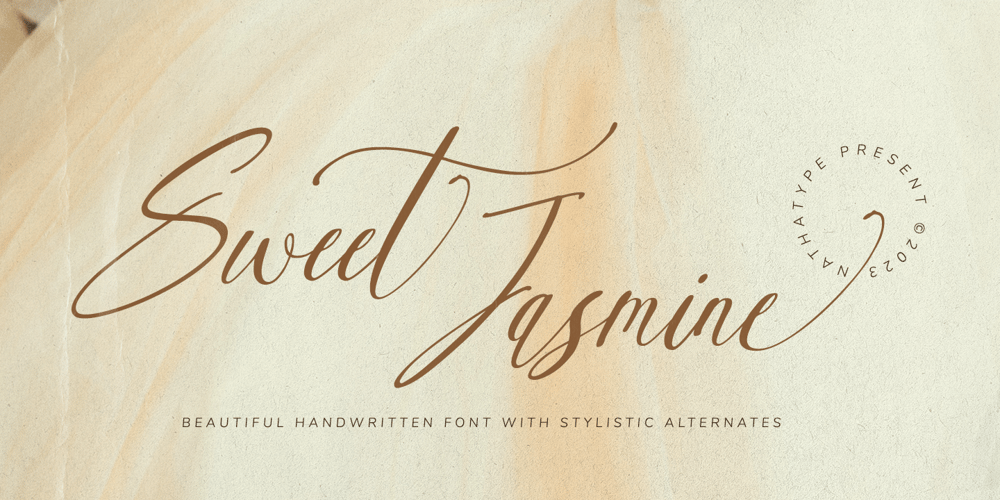
Sweet Jasmine Font Family was designed by Donis Miftahudin and published by Nathatype. Sweet Jasmine contains 1 styles and family package options. Are you having trouble finding a perfect font for your projects? Using an inappropriate font will only show unprofessional, uninteresting projects and leave bad impressions to the audience. Therefore, let us introduce you to our script font to help you create lovely, unique, prominent designs. This is Sweet Jasmine.Sweet Jasmine is a handwriting-like script font created with mixing the natural handwriting elements with natural nuances to produce warm, flowing-looking designs. Its letters are interconnected in high contrasts, and it is suitable to apply for big text sizes because it has somewhat complicated font style details to ease the font to read. In addition, you can enjoy the available features here.Features: Ligatures Stylistic Sets Multilingual Supports PUA Encoded Numerals and Punctuations Sweet Jasmine fits best for various design projects, such as brandings, posters, banners, headings, magazine covers, quotes, invitations, name cards, printed products, merchandise, social media, etc. Find out more ways to use this font by taking a look at the font preview.Thanks for purchasing our fonts. Hopefully, you have a great time using our font. Feel free to contact us anytime for further information or when you have trouble with the font. Thanks a lot and happy designing.